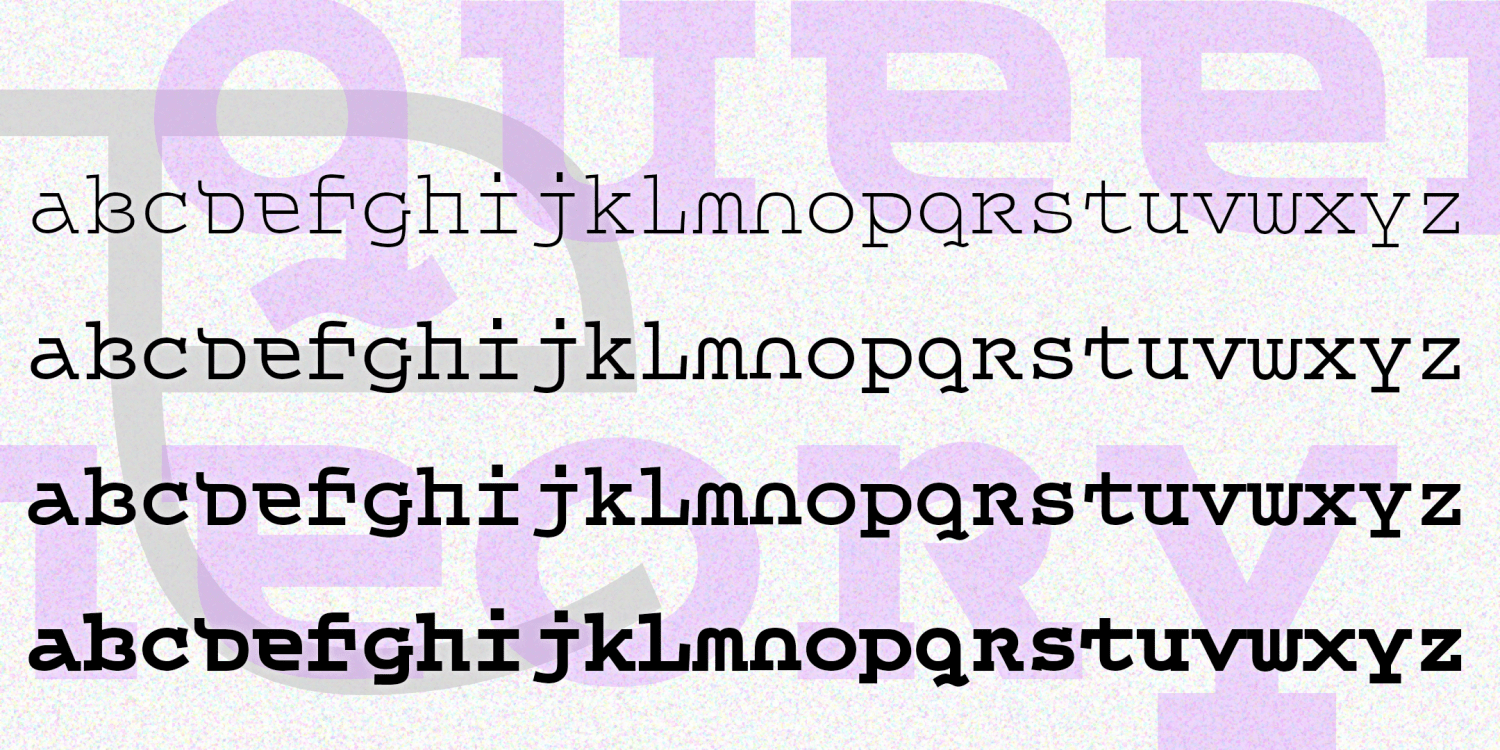
Queer Theory
QUEER THEORY is my attempt to make a monospaced font with a less predictable feel. I was thinking about fonts like Envision, Democratica and Rotis Semi Serif, with their hybrid letterforms and irregular application of serifs. The basic letterforms of Queer Theory were inspired by the invisible classic Courier, fusing upper and lowercase in a way that suggests an uncial. Unlike your average Courier though, this font has very square--not rounded--slab serifs.